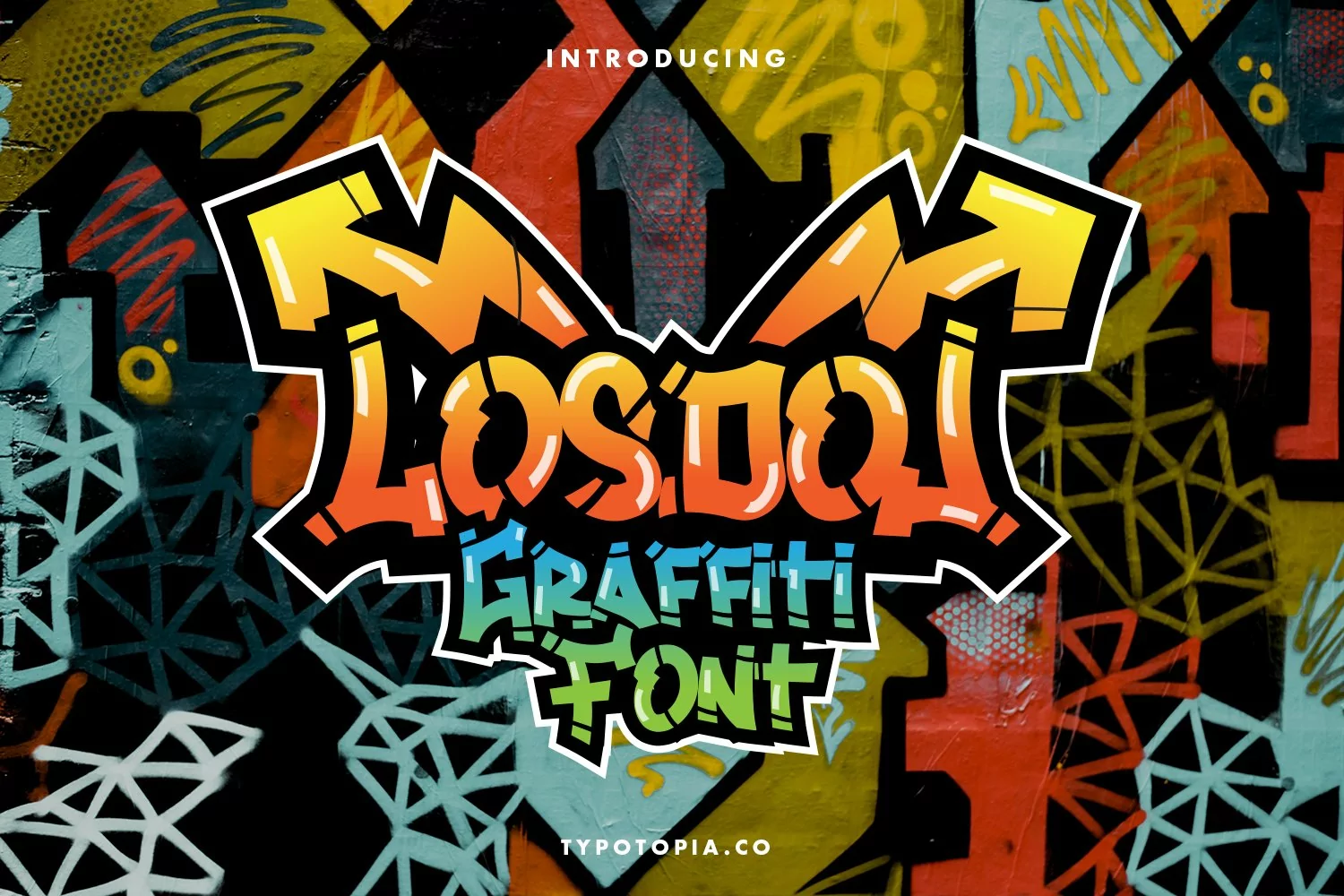
Losdol
Introducing, Losdol an incredibly Unique and Interesting Display Font
Losdol is an incredibly Unique and Interesting Display Font that is absolutely great for your next creative project such as logos, printed quotes, invitations, cards, product packaging, headers, Logotype, Letterhead, Poster, Apparel Design, Label, and etc.
This Versatile Font includes also support a Multilingual Characters. Making this Font a Swiss Army knife in your Font Library. It's extremely fun to use as each word can be transformed to your liking.
What are the main Features on This Fonts :
• Uppercase & Lowercase letters
• Numbering and Punctuations